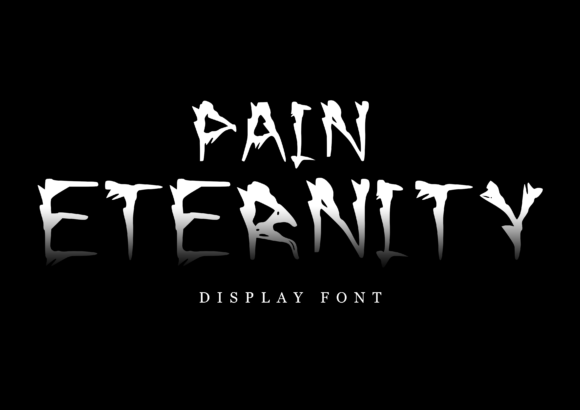
Pain Eternity: A Terrifying Display Font
Pain Eternity is a bold and unsettling display font that captures the essence of horror. Its jagged edges, distorted shapes, and dark aesthetic make it perfect for creating an atmosphere of fear and suspense. Whether you're designing a Halloween poster or crafting a metal band logo, this typeface delivers a dramatic and unforgettable look.
Designed with inspiration from classic horror movies, Pain Eternity isn't just a font—it's a visual statement. It evokes the feeling of being chased by a shadow or hearing a creak in the night. This unique quality makes it a powerful tool for anyone looking to convey intensity and emotion through typography.
Why Different Audiences Care About Pain Eternity
While Pain Eternity may seem like a niche choice, its appeal spans across various industries and creative fields. From designers to educators, business owners to hobbyists, each group may find different reasons to appreciate this terrifying typeface.
For beginners, Pain Eternity offers a chance to experiment with bold, unconventional designs. It can be a fun way to explore the boundaries of typography and learn how visual elements impact mood and message. For experienced users, it provides a versatile tool to add depth and drama to their work without compromising readability.
Creators and professionals often seek fonts that stand out. Pain Eternity fits this need perfectly, especially when the goal is to create something memorable. Metal bands, for example, might use it to design album covers that reflect the intensity of their music. Similarly, marketers could use it for promotional materials that aim to grab attention and evoke strong emotions.
How Different Users Might Approach Pain Eternity
Business owners looking to build a brand identity may evaluate Pain Eternity based on its ability to communicate a specific tone. While it may not be suitable for all industries, it can be a great fit for those targeting a niche audience that appreciates edgy or alternative aesthetics.
Educators might use Pain Eternity in classroom projects or presentations to teach students about typography, design principles, and the emotional impact of visual elements. It can serve as a practical example of how font choice influences perception and engagement.
Hobbyists and consumers interested in DIY projects may find Pain Eternity useful for personal creations, such as custom t-shirts, greeting cards, or digital art. Its dramatic look adds a unique touch that sets their work apart from the ordinary.
Practical Applications of Pain Eternity
For creators working on Halloween-themed projects, Pain Eternity can be a go-to font for posters, flyers, and social media graphics. Its eerie appearance aligns perfectly with the spooky vibe of the season, making it an effective tool for attracting attention and setting the right mood.
Entrepreneurs launching a new product or service might consider using Pain Eternity if their brand is centered around themes of mystery, danger, or rebellion. It can help establish a strong visual identity that resonates with a specific target audience.
Freelancers and publishers may use Pain Eternity in book covers, magazine layouts, or website headers to create a striking visual impact. When used appropriately, it can enhance the overall design and make content more engaging.
Key Considerations When Using Pain Eternity
When evaluating Pain Eternity, users should consider factors like ease of use, cost, and flexibility. While it’s visually compelling, it may not be the best choice for every project. Some applications may require a more traditional or legible font, depending on the context and audience.
For those focused on commercial value, it’s important to assess whether Pain Eternity aligns with their brand image and marketing goals. It works well for niche markets but may not be suitable for mainstream or corporate environments.
Learning value is another consideration. Beginners may benefit from experimenting with Pain Eternity to understand how different fonts affect design and storytelling. However, they should also explore other options to develop a well-rounded understanding of typography.
Is Pain Eternity Right for You?
Determining whether Pain Eternity suits your needs depends on your goals, skill level, and the nature of your project. If you're aiming for a dramatic, intense look, this font could be an excellent choice. However, if clarity and readability are your top priorities, you may want to consider a more standard typeface.
For those who enjoy pushing creative boundaries, Pain Eternity offers a unique opportunity to express ideas in a bold and unconventional way. It can be a valuable addition to any designer’s toolkit, provided it’s used thoughtfully and with an understanding of its strengths and limitations.
Ultimately, the decision to use Pain Eternity comes down to how well it matches your vision and the message you want to convey. Whether you’re a professional designer, a hobbyist, or someone exploring the world of typography, this font has the potential to make a lasting impression.